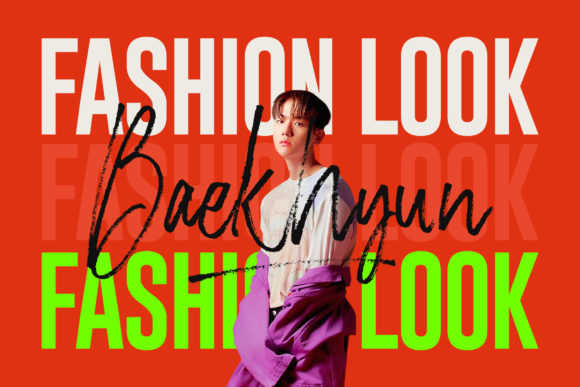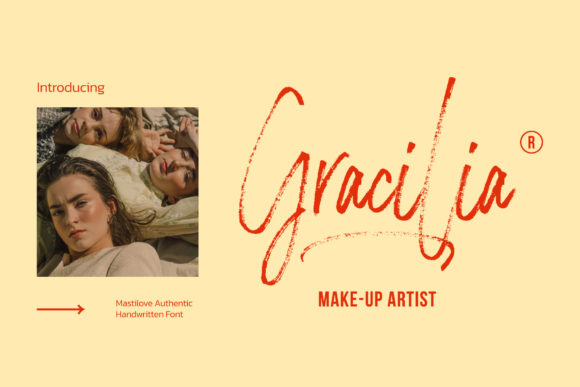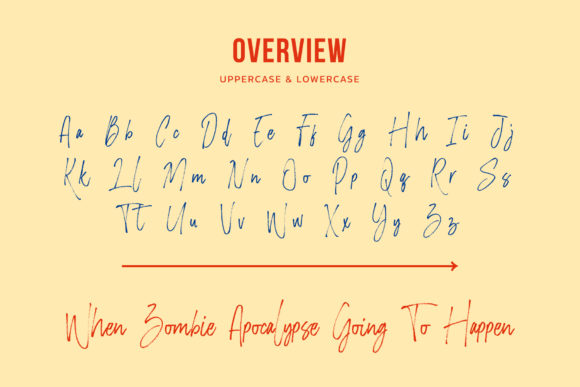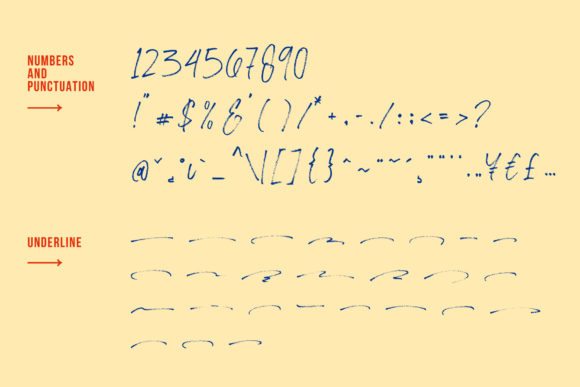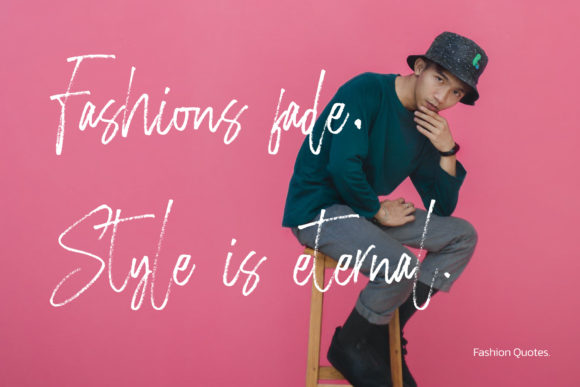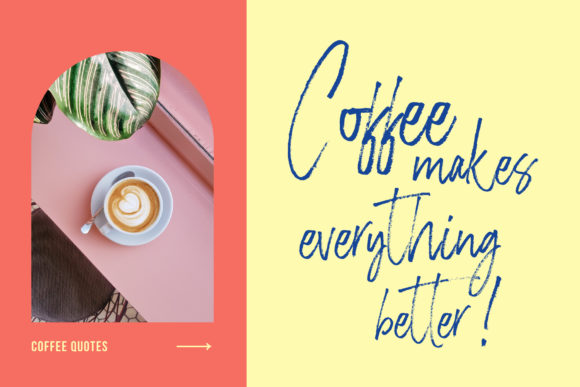
Introduction to Mastilove Font Font
Fonts play a crucial role in design, and the Mastilove Font font is a typeface that brings both character and versatility to any project. Whether you’re working on a branding project, a website, or a print design, the Mastilove Font font offers a unique style that can elevate your work.
Mastilove is a cute and brushed handwritten font.
This gentle font will look gorgeous on a variety of design ideas It will add a joyful and romantic touch to each of your projects.
Key Features of Mastilove Font Font
Why Choose Mastilove Font Font?
The Mastilove Font font is more than just a typeface – it’s a design tool that helps you communicate your message with style and clarity. Its unique character set and versatile design make it suitable for a wide range of applications, from elegant invitations to bold headlines.
With its carefully crafted letterforms and balanced proportions, the Mastilove Font font ensures readability and visual appeal across all mediums.
What makes Mastilove Font font special?
The Mastilove Font font stands out with its unique design, exceptional readability, and versatility across various design applications.